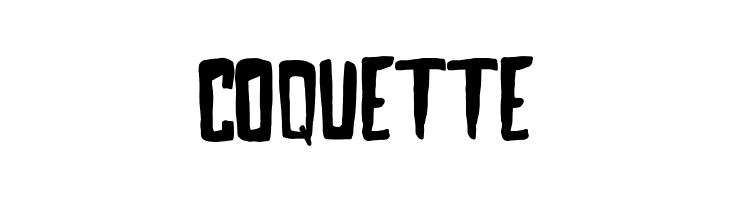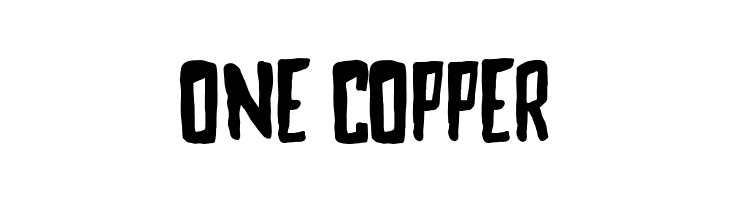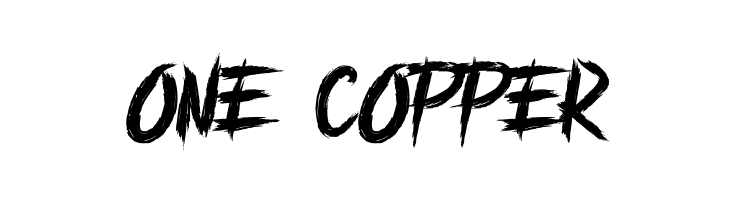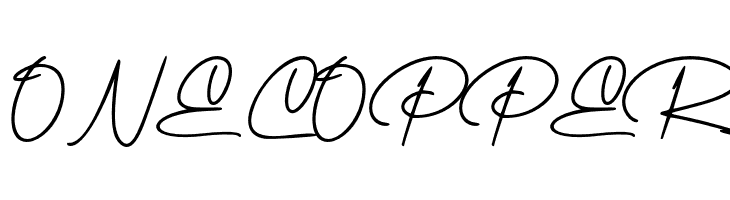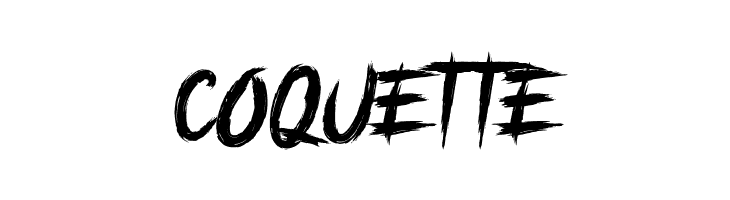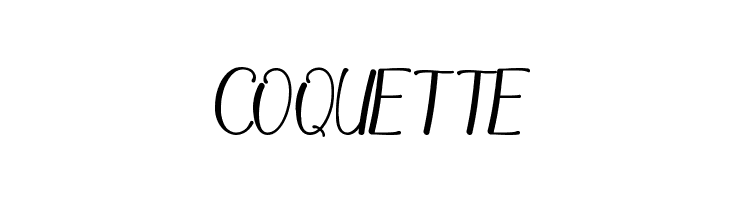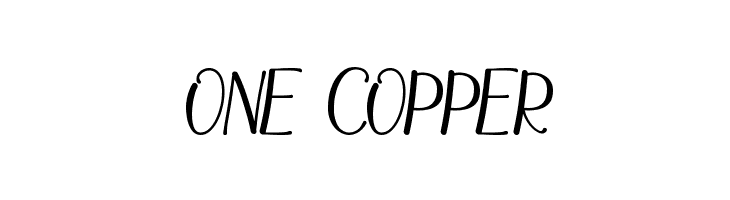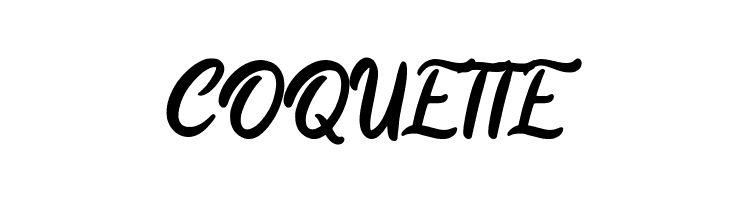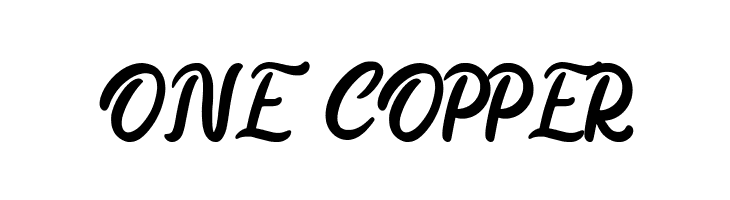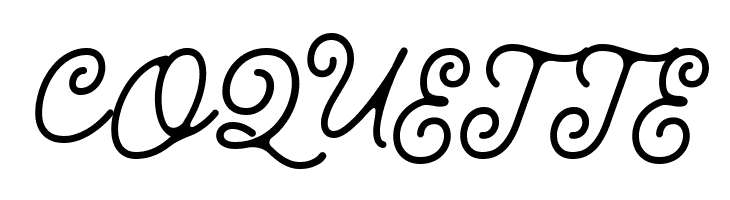
A clean, modern font with a minimalist design and consistent stroke thickness.
A modern, geometric sans-serif font with a clean and minimalistic design.
A thin, modern font with geometric influences and uniform strokes.
An elegant cursive font with flowing, sophisticated strokes.
A classic serif font with elegant, sharp serifs and a timeless appeal.
A playful handwritten font with a quirky, casual style.
A playful and casual handwritten font with dynamic strokes.
A bold, hand-drawn font with a rugged and distressed style.
A playful and elegant script font with a handwritten, cursive style.
A bold, jagged font with a raw, energetic style.
An elegant, flowing script font with graceful curves and loops.
A cursive, calligraphic font with elegant, flowing lines and a bold presence.
A graceful calligraphic script font with elegant curves and dynamic flow.
A playful and elegant script font with flowing, cursive letterforms.
A playful, hand-drawn font with double-line outlines and whimsical style.
A decorative, condensed font with diagonal line patterns in each character.
A playful, handwritten script font with a dynamic and friendly style.
A fluid and elegant script font with dynamic letterforms.
A bold, italicized font with a modern, geometric style.
A bold, geometric font with a modern, industrial aesthetic.
A bold, distressed font with a vintage, stamped appearance.
A bold, decorative font with playful swirls and patterns.
A lively handwritten font with dynamic strokes and a casual style.
A dynamic and expressive handwritten font with fluid, interconnected strokes.
A bold, flowing script font with elegant curves and smooth strokes.
A modern, elegant script font with flowing cursive letters.
An elegant script font with flowing, cursive letterforms and artistic flair.
Casual handwritten font.
An elegant, flowing script font with graceful curves and decorative flourishes.
A bold, expressive handwritten font with brush-like strokes.
A bold, expressive brush script font with a hand-painted look.
A dynamic and elegant script font with fluid, cursive strokes.